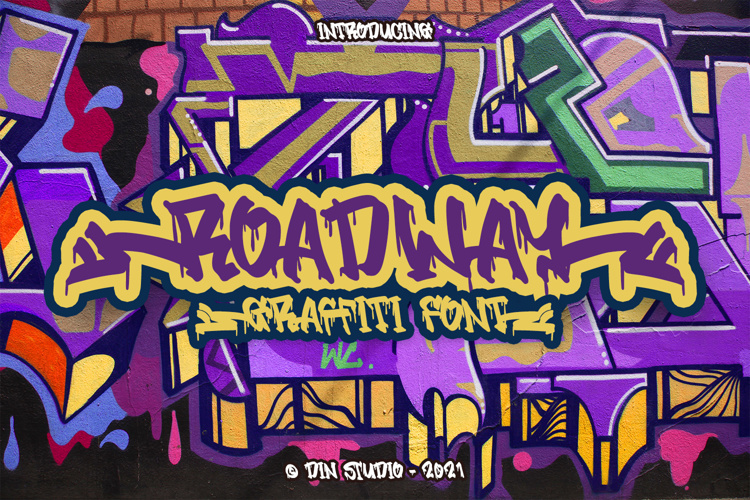
Roadway Font
Roadway is a script typeface that is inspired by the urban styles of graffiti, made all in uppercase. An excellent choice to add the right amount of street vibe and playfulness. Perfect for social media branding projects, fashion designs, printed quotes, packaging, or even as a stylish text overlay to any background
image.
Features include:
• Ligatures
• Stylistic Sets
• Multilingual Supports
• Numerals and Punctuations